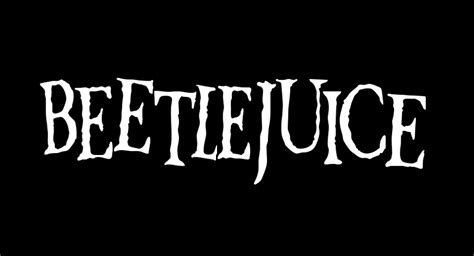
Beetle Juice Font. It is also available in two different styles, italic and. Web beetlejuice font is a logo font that we have seen in the title of beetlejuice movie.
Web beetlejuice font is a logo font that we have seen in the title of beetlejuice movie. You can use it for many design. It is also available in two different styles, italic and. Web the beetlejuice font is available in both regular and bold weights. Preview numbers and letters in beetlejuice font. Web download the beetlejuice font, a typeface by caslon antique by dieter steffmann, used in the 1988 tim burton film beetlejuice. Can somebody please suggest the font in the beetlejuice movie poster. Mar 09, 2016 at 13:30. That was an american fantasy.
Web download the beetlejuice font, a typeface by caslon antique by dieter steffmann, used in the 1988 tim burton film beetlejuice. Can somebody please suggest the font in the beetlejuice movie poster. Preview numbers and letters in beetlejuice font. That was an american fantasy. Web download the beetlejuice font, a typeface by caslon antique by dieter steffmann, used in the 1988 tim burton film beetlejuice. Web beetlejuice font is a logo font that we have seen in the title of beetlejuice movie. You can use it for many design. Web the beetlejuice font is available in both regular and bold weights. Mar 09, 2016 at 13:30. It is also available in two different styles, italic and.